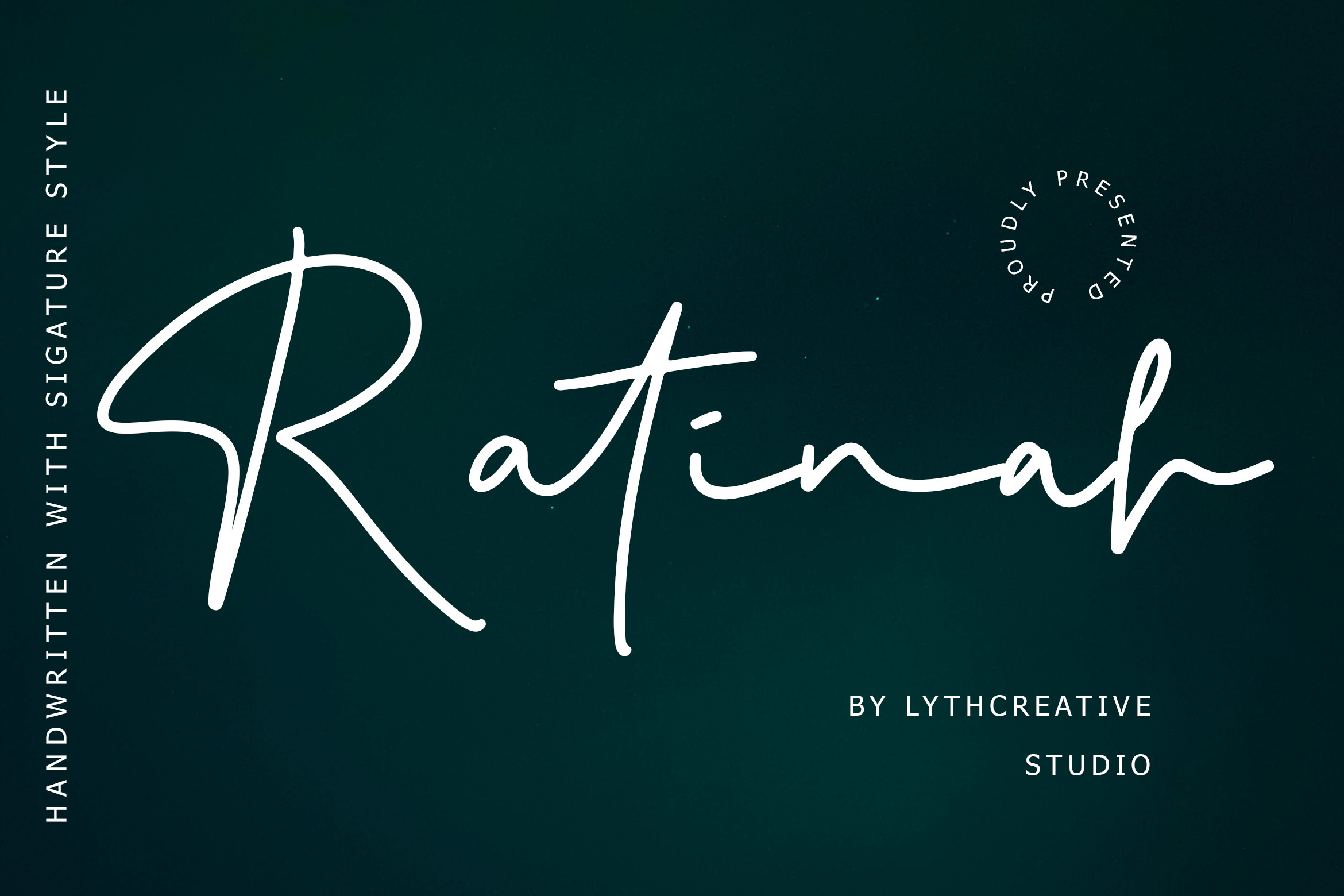
Ratinah Signature Font
Ratinah is a beautiful handwritten font with signature style. It’s perfect for adding a graceful feel to any design project.
Ratinah is perfect for branding projects, logo, wedding designs, social media posts, advertisements, product packaging, product designs, label, photography, watermark, invitation, stationery and any projects.